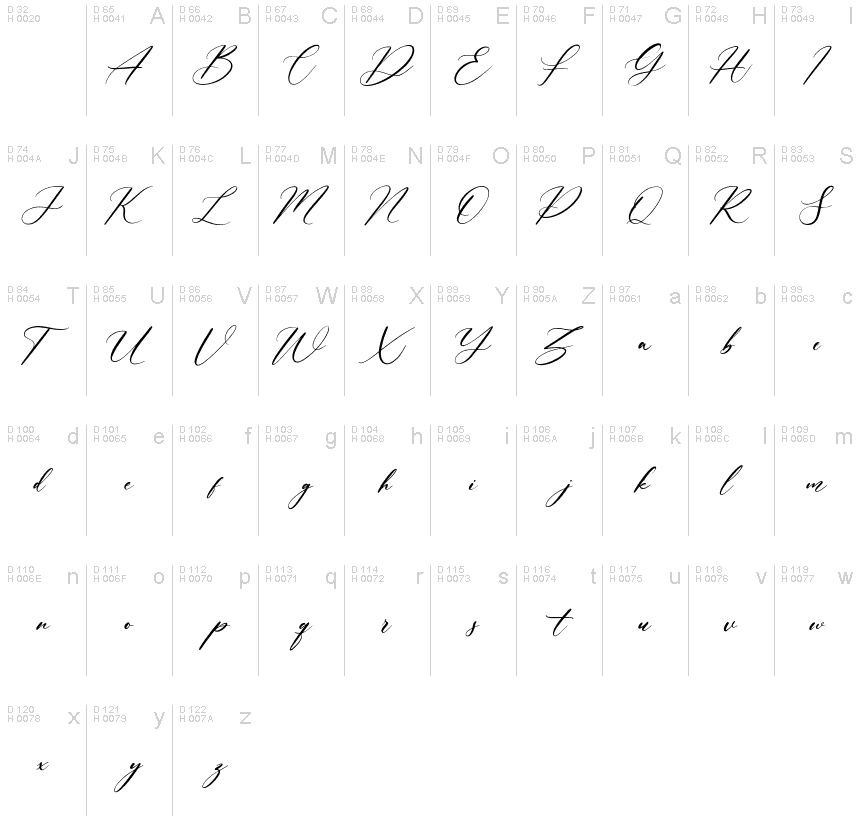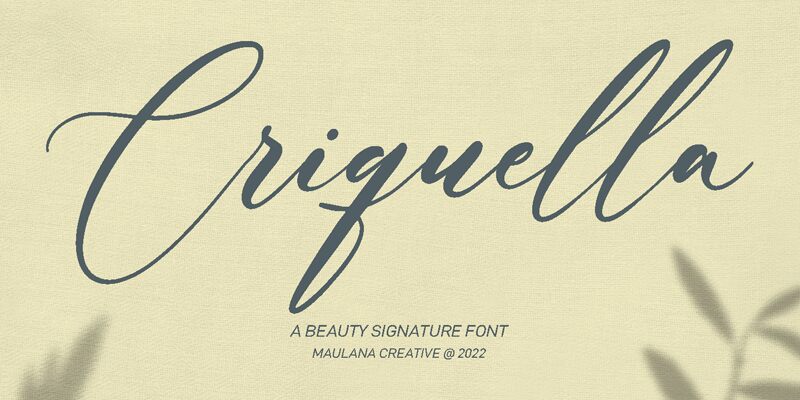
Criquella Free Regular
Criquella, the exquisite calligraphy signature font created by Maulana Creative, is a perfect fit for any project that requires an elegant and sophisticated touch. Its light weight adds a delicate grace to any design it graces, from wedding invitations to branding materials. The fluid lines and graceful curves of Criquella make it an ideal choice for projects that require a touch of romance or refinement, such as high-end fashion magazines or luxury hotel marketing materials. With its timeless beauty and effortless charm, Criquella is sure to elevate any design to new heights of sophistication.